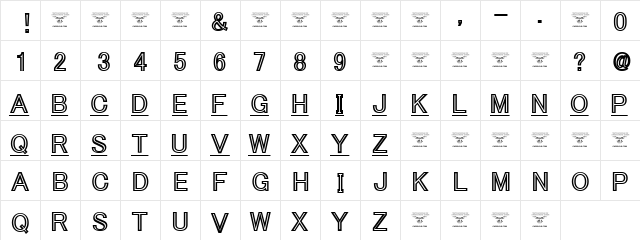
Tha Cool Kidz Black Black
Design Context for Tha Cool Kidz Black Typeface
Tha Cool Kidz Black offers clean, dependable letterforms without strong stylistic allegiance, making it a practical choice for designers who need flexibility.